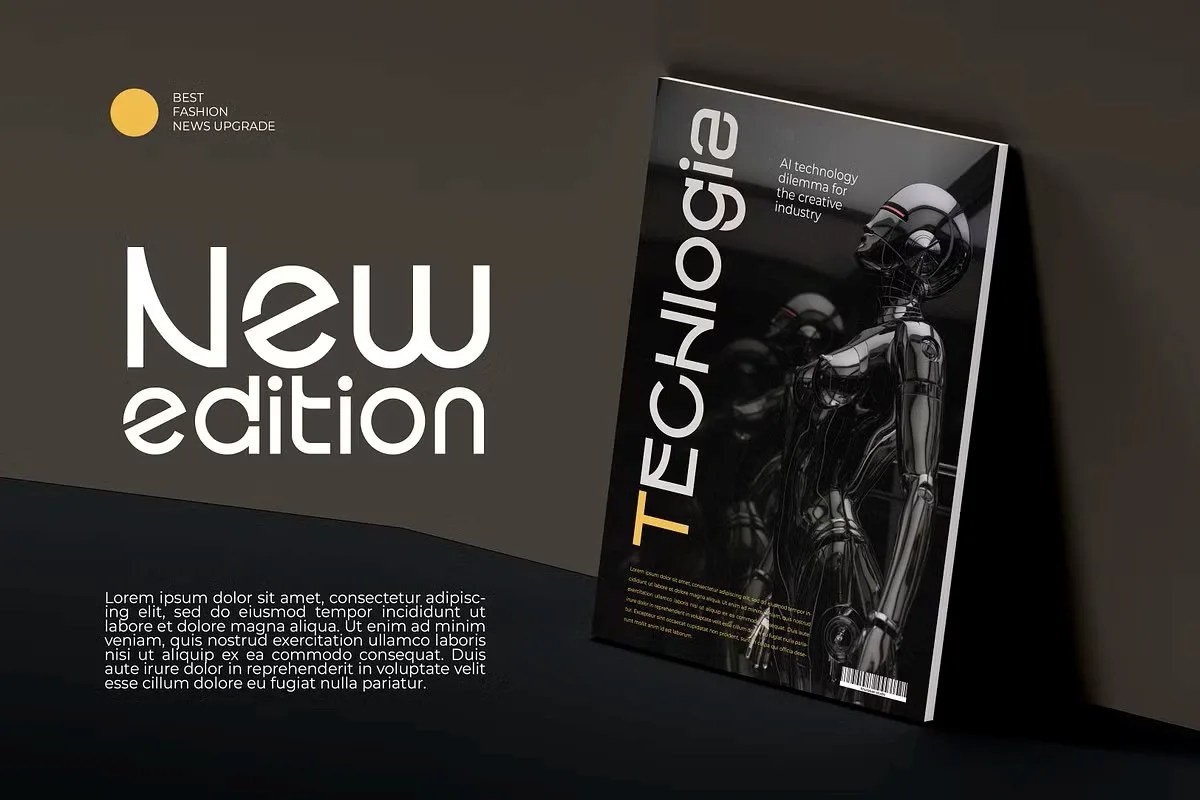
Colmeak by the prolific author Khurasan. This is a clean and impactful modern display font. It brings a sense of confidence and absolute clarity to any design. Its solid letterforms are built with geometric precision. Colmeak is perfect for projects that require a strong, no-nonsense aesthetic without ever feeling boring. This font communicates with a clear and authoritative voice, making it a reliable choice for contemporary design.
This font’s clean aesthetic makes it incredibly versatile for a number of professional uses. Specifically, it is a perfect fit for technology startups, digital agencies, and software branding. Its professional look also suits corporate presentations and official reports. Furthermore, this modern display font is a great tool for poster design and advertising headlines. It grabs attention quickly and delivers a clear message to the audience. You can use it anywhere you need a touch of modern authority and style.
• Clean and impactful sans serif style
• Features strong, geometric letterforms
• Ideal for headlines, logos, and tech branding
• Offers excellent readability and modern appeal
Colmeak